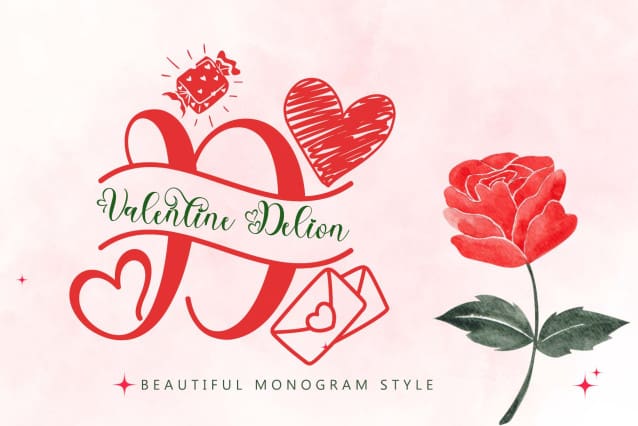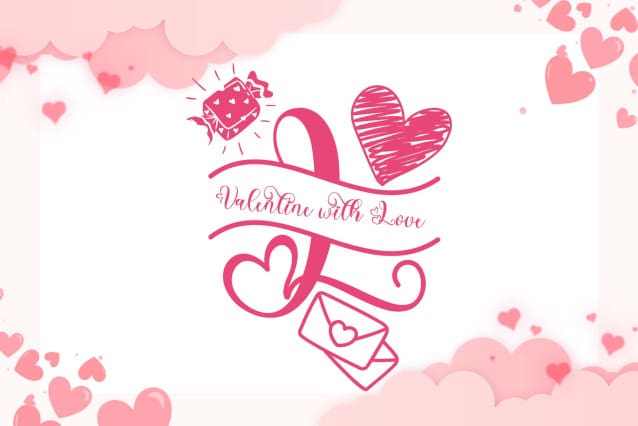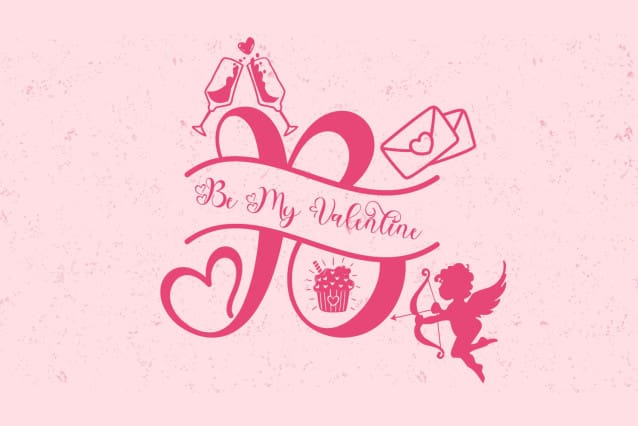
Valentine Delion Monogram Font
Valentine Delion Monogram Font is a very beautiful monogram handwritten font. This font is equipped with uppercase, lowercase, monogram, numeral, punctuations and multilingual support. This font is very suitable for use for valentine, wedding, party, birthday, invitations, logo, sticker and others.